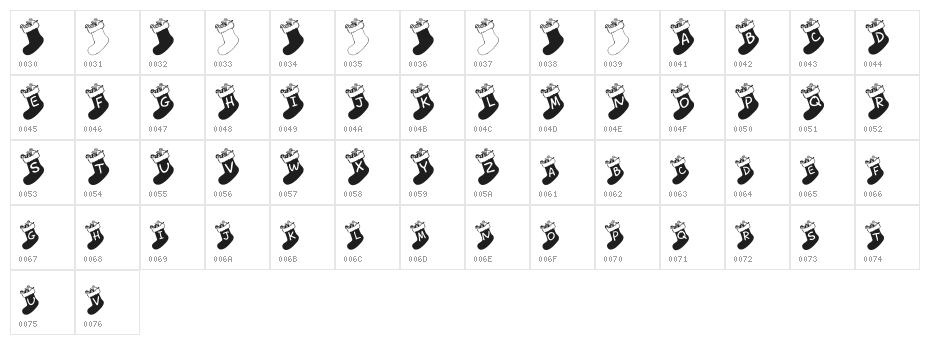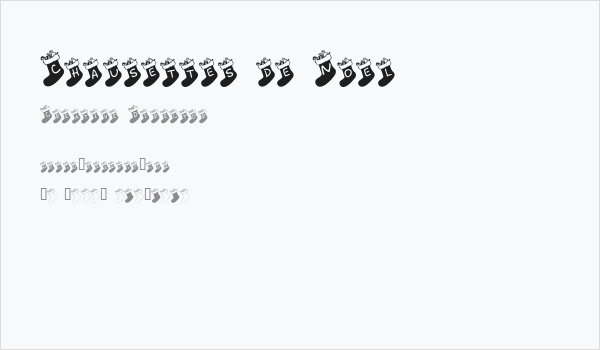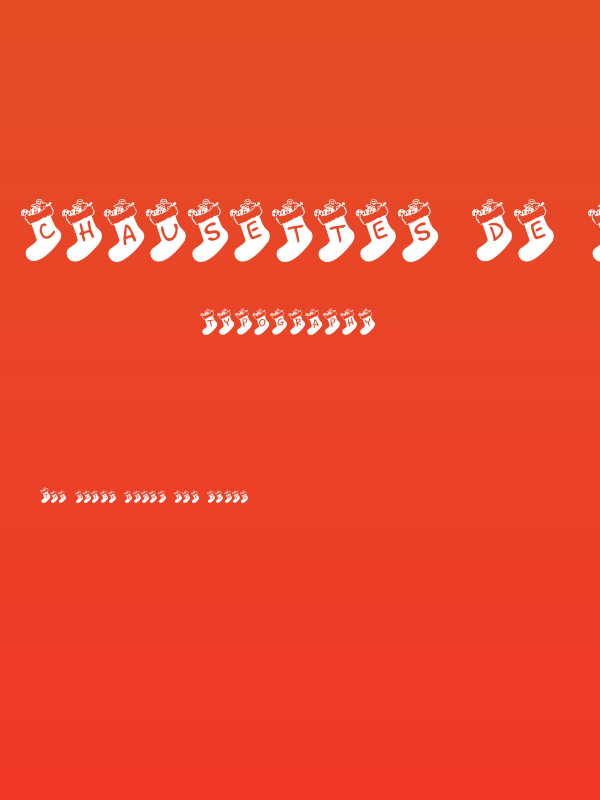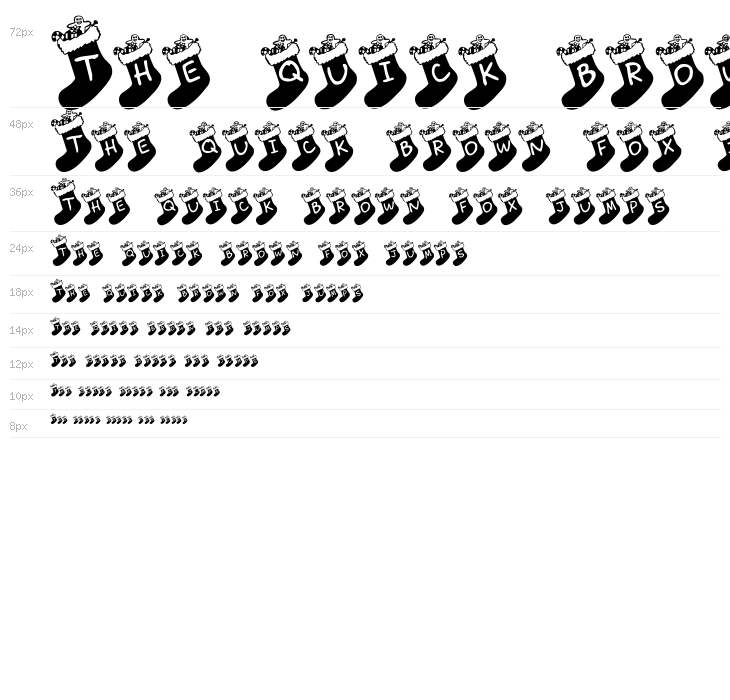
Chausettes de Noel Font
Chausettes de Noel Description
This playful and festive font features each letter embedded within a Christmas stocking, creating a whimsical and seasonal appearance. The stockings are detailed with a fluffy top and a hanging loop, adding to the holiday charm. The letters themselves are bold and clear, ensuring readability despite the decorative elements. This font is perfect for holiday-themed projects, bringing a sense of joy and celebration. The unique design captures the essence of Christmas, making it ideal for festive greetings, invitations, and decorations.
| Use Case | Headlines, Logos, Decorative text |
| Proposed Projects | Ideal for Christmas cards, holiday invitations, festive banners, and seasonal marketing materials. |